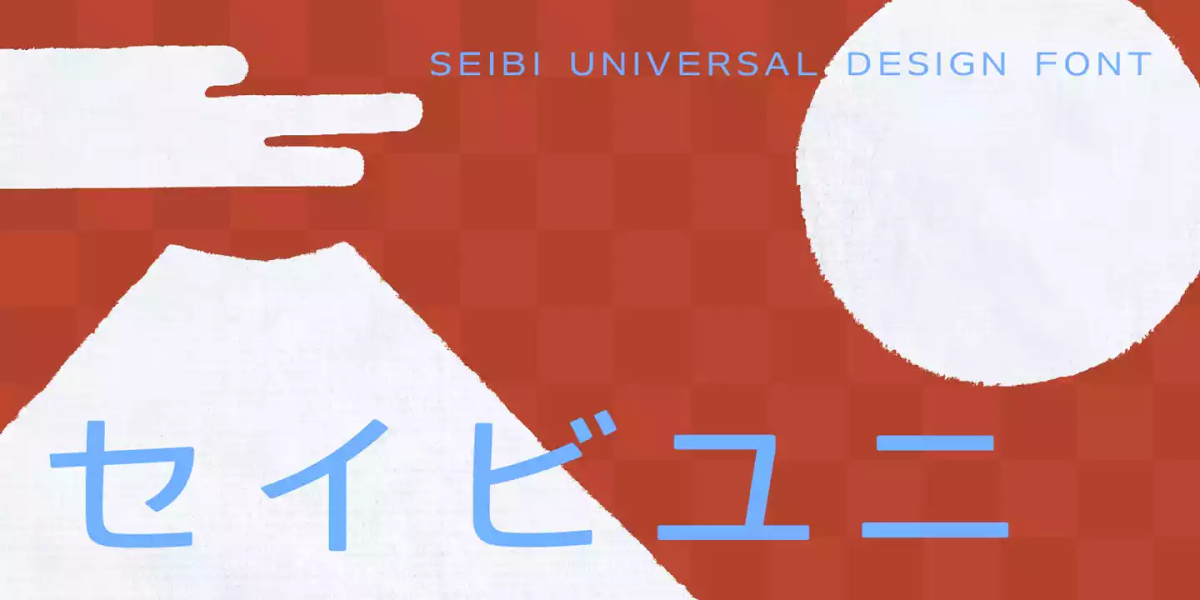
Seibi Yuni Font
Originally intended for TV captions, this is a flattened style of font for horizontal typesetting. Although it can be used in vertical typesetting, this universal-design font maximizes legibility by directing the eye naturally along the line of text.
元々TVのテロップを想定した、ヨコ組用の平体デザインのフォントです。タテ組でも使用可能ですが、ヨコ組時に文字を追う視線がスムーズに進むよう考慮した横ラインの揃えと和欧混合文における英数字の視認性を高めたユニバーサルフォントです。エッジを丸みを持たせて、タテ画は太く、ヨコ画は細い明朝体のリズムを取り入れることでデジタルゴシック体特有の堅さや強さを軽減。デジタルフォントでも活字体のような目に優しく読みやすい文字を目指しました。
Seibi Yuni Font is a Decorative Fonts font that brings a professional and versatile look to your projects. Originally intended for TV captions, this is a flattened style of font for horizontal typesetting.